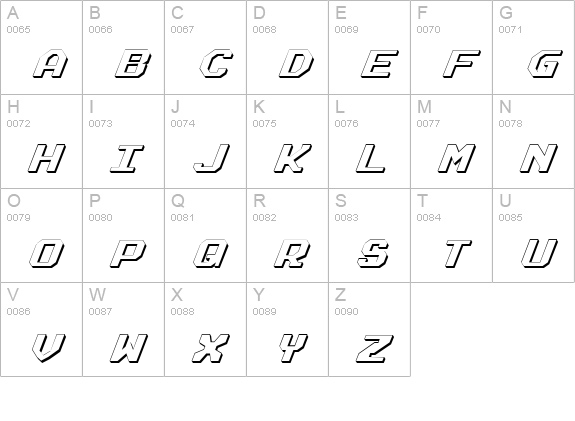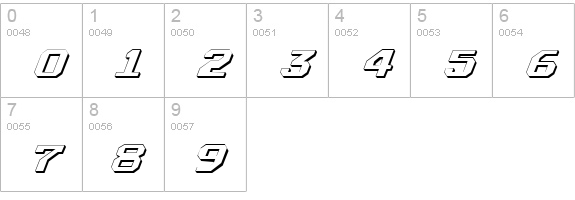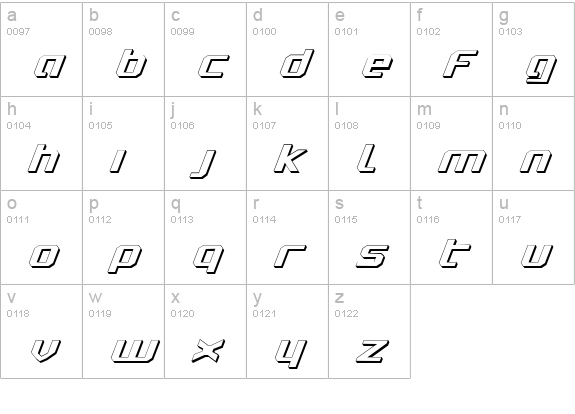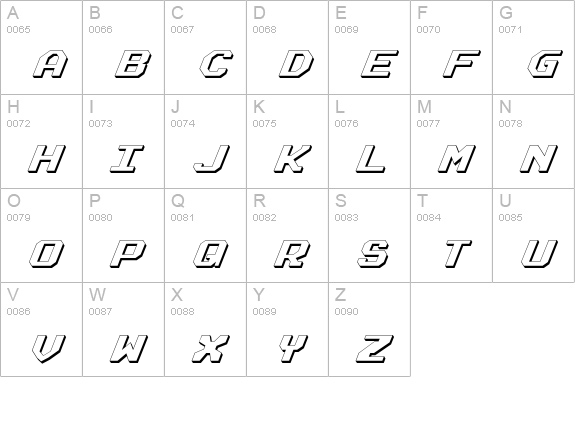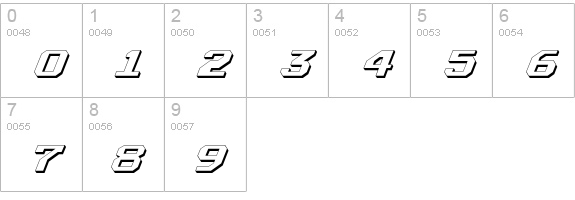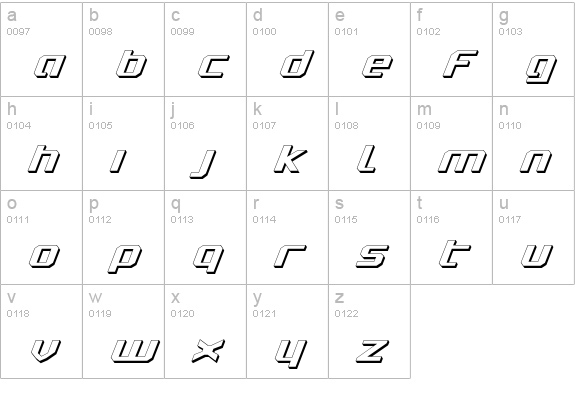
Realpolitik Shadow Italic is a distinctive, italic variant in the Realpolitik typeface family \xE2\x80\x94 well suited to design and typography projects.
Realpolitik Shadow Italic font is a captivating and dynamic typeface that exudes a sense of sophistication and modernity. With its sleek and stylish italic design, this font is perfect for adding a touch of elegance to any project. The shadows incorporated into the font create a sense of depth and intrigue, making it stand out from the crowd. What sets Realpolitik Shadow Italic font apart is its versatility and ability to adapt to various design contexts, whether it be for branding, marketing materials, or creative projects. Its bold yet refined appearance commands attention and adds a touch of drama to any text. And the best part? Realpolitik Shadow Italic font is available for free download at FontsMarket.com, allowing you to enhance your designs with this stunning typeface without breaking the bank. So why wait? Add a touch of sophistication and style to your projects with Realpolitik Shadow Italic font today!